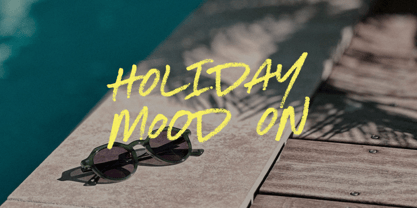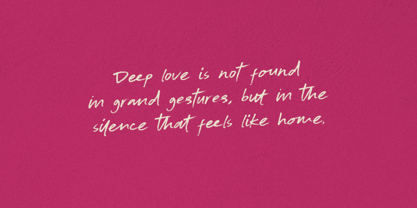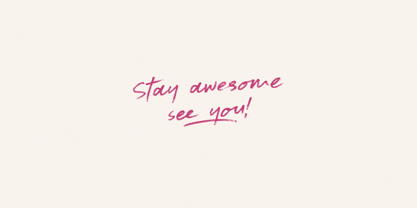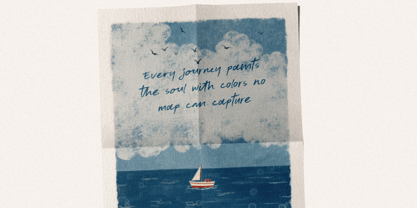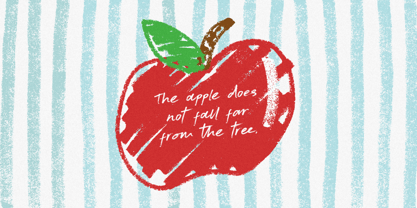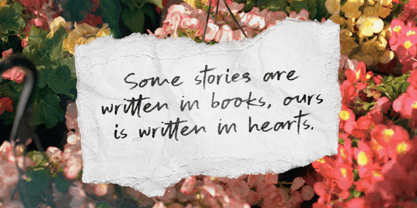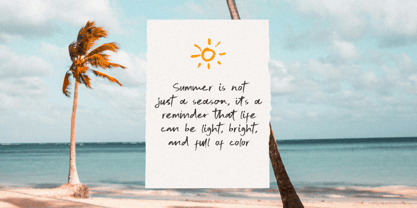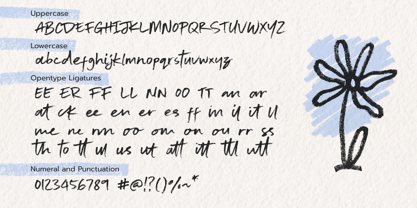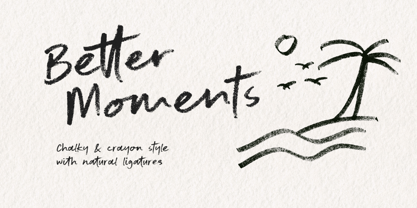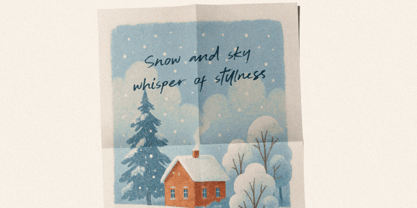
Better Moments
by Negara Studio
The Better Moments Font Family was designed by Anugerah Negara and published by Negara Studio. Better Moments contains 2 styles and family package options.
Better Moments – Handwritten Chalk & Crayon Font Say hello to Better Moments, a playful handwritten font that brings back the charm of doodles and spontaneous strokes! Inspired by chalk and crayon textures, this font captures the warmth of imperfect lines — making every word feel alive and full of character. Perfect for book covers, posters, packaging, social media quotes, or anything that needs a touch of handmade fun. It’s friendly, expressive, and just a little bit messy — in the best way possible! Also comes with an Oblique version, giving your designs an extra dynamic feel for more creative freedom. Plus, multi-language support makes it ready for a variety of international projects. Let your words shine in their most natural, cheerful form — because every little scribble can create better moments.
Designers: Anugerah Negara
Publisher: Negara Studio
Foundry: Negara Studio
Design Owner: Negara Studio